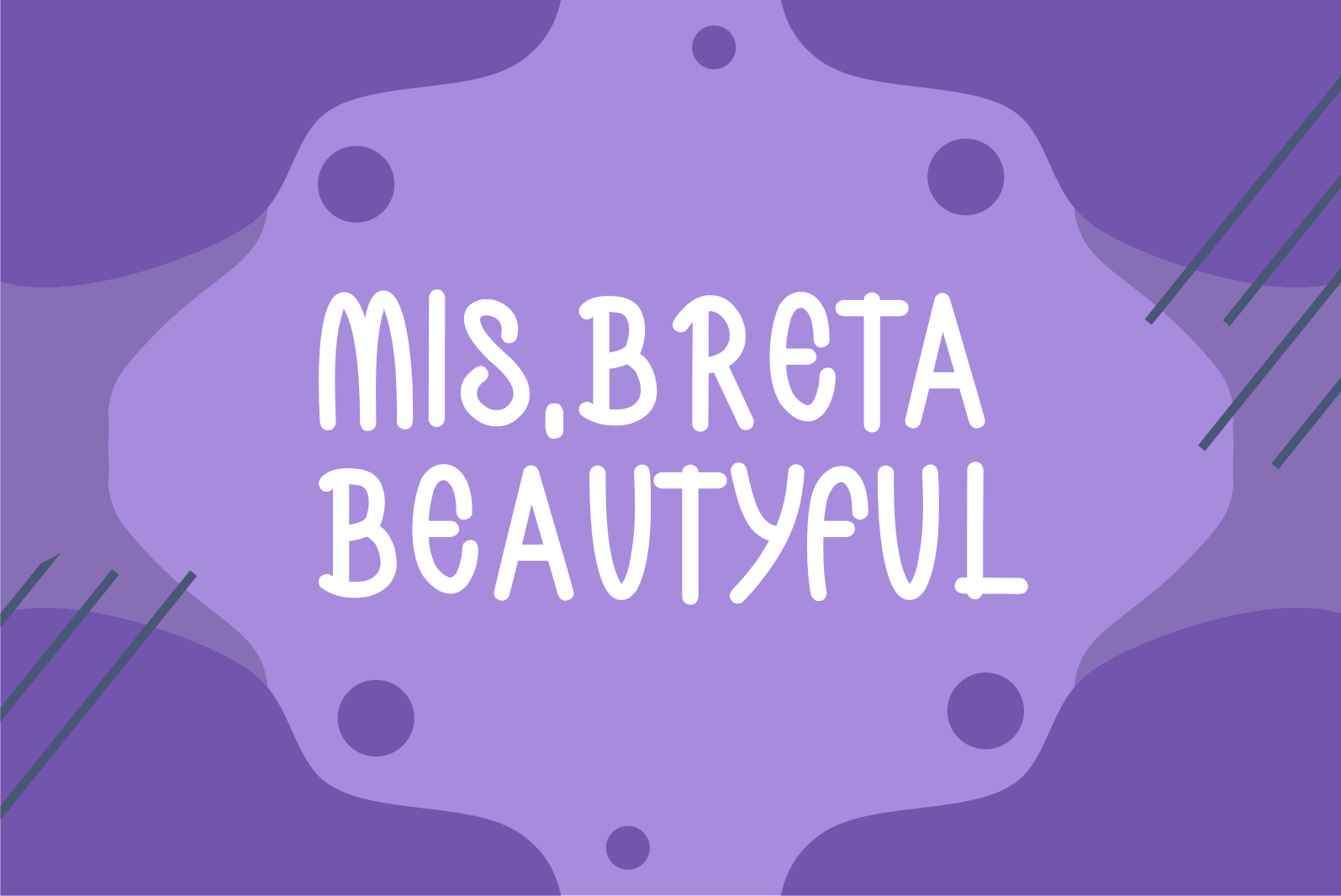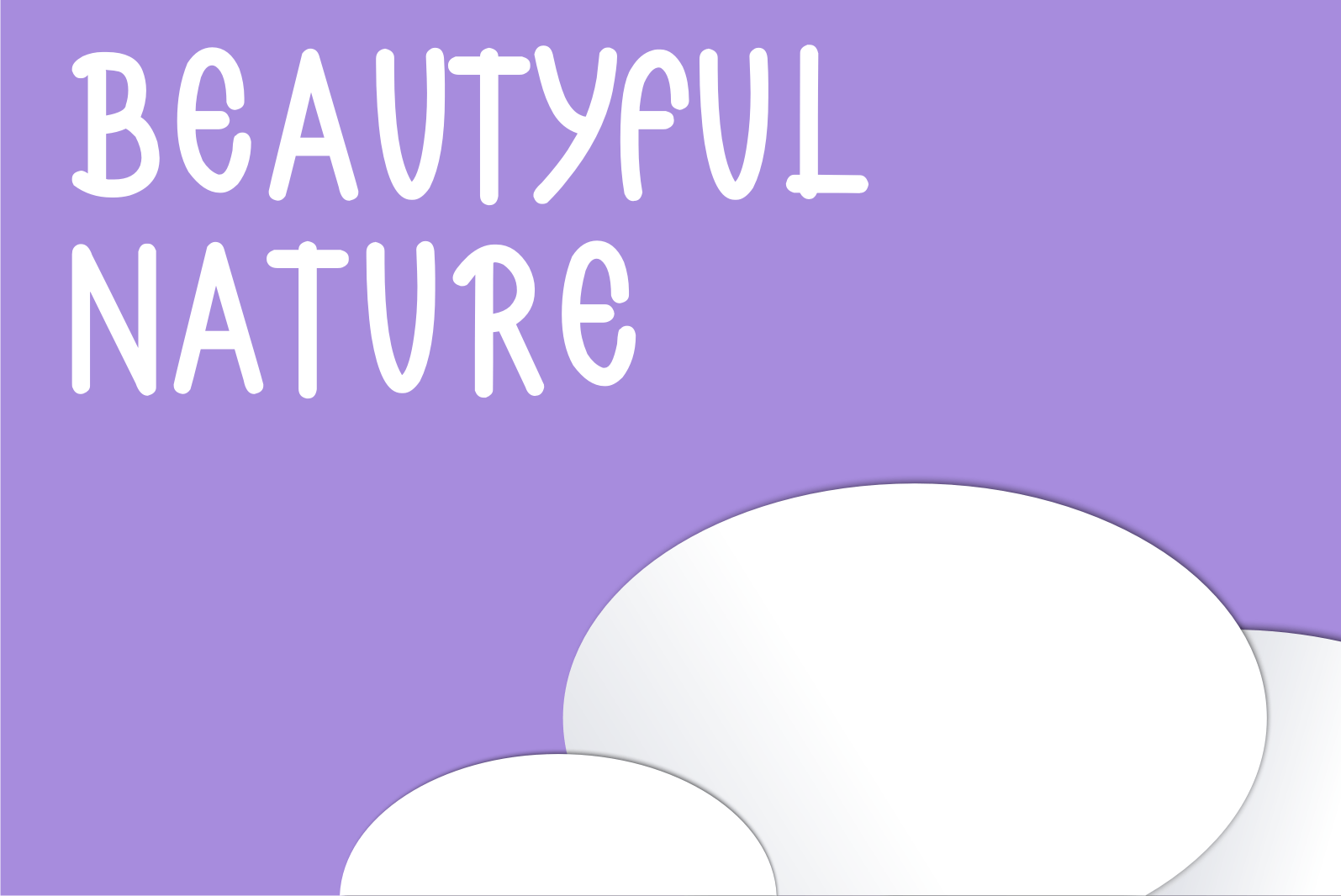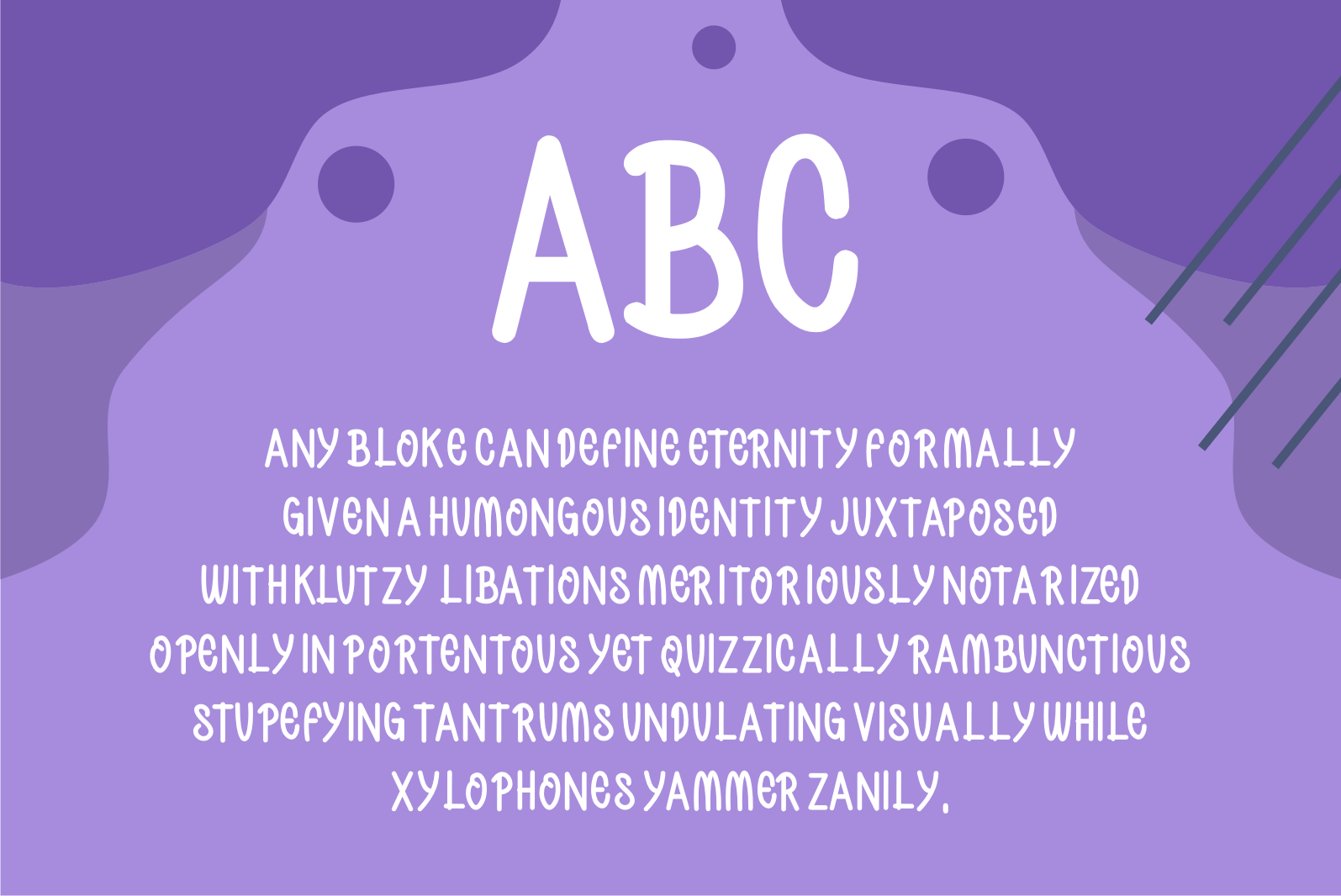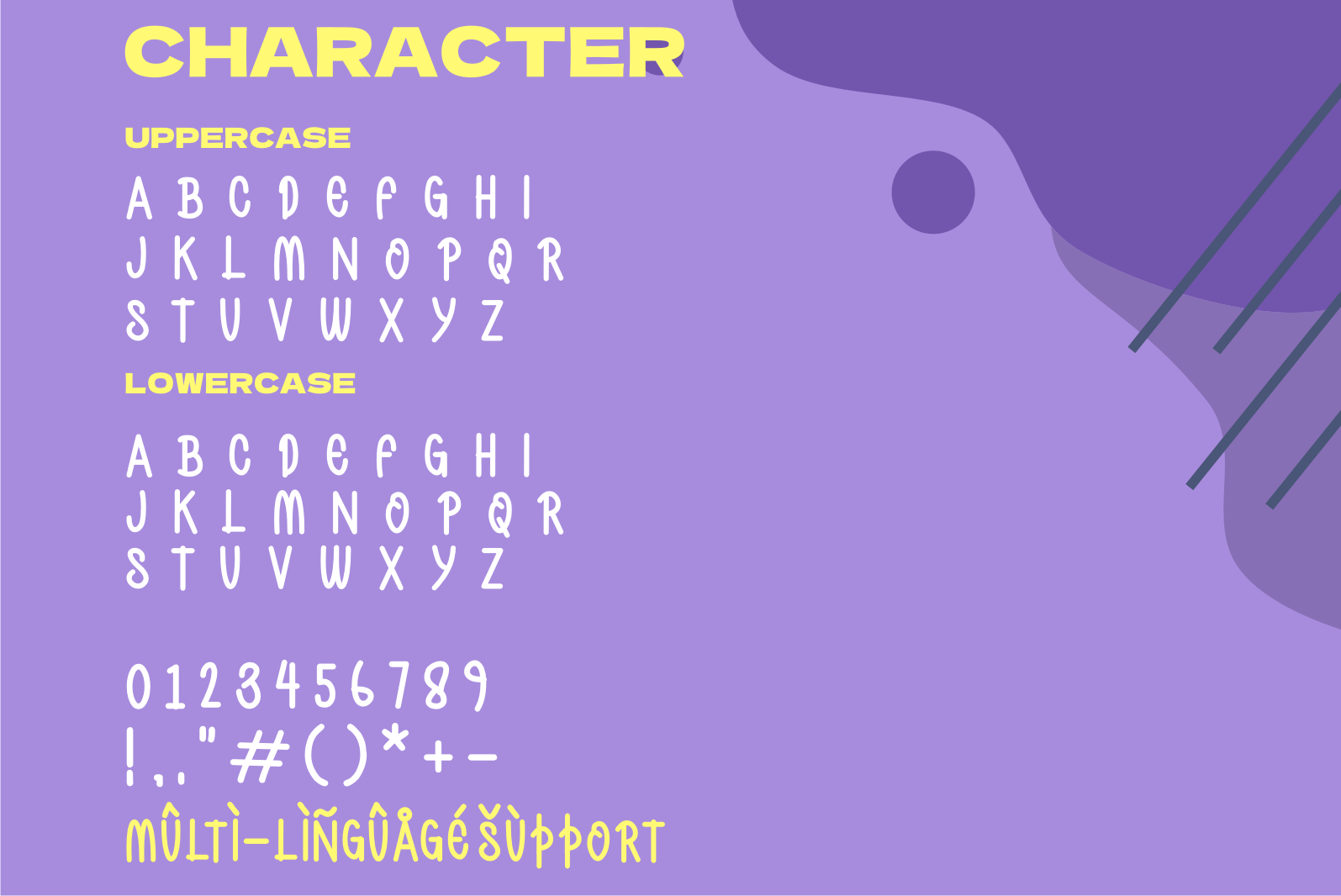
Yuminer Display Font
This is a cool and trendy-looking display font that is great for logos, badges, clothing, posters, and other projects that need to stand out from the crowd. Add this font to your favorite creative ideas, and notice how it makes them come alive!